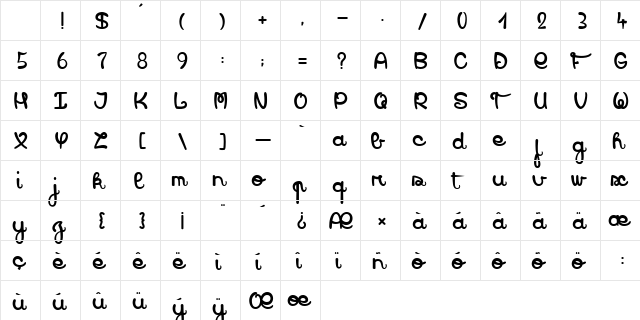
Complete Sweet Dreamz Regular glyph index. Displaying only characters natively supported by Sweet Dreamz Regular font.
Sweet Dreamz is a composed and adaptable typeface that performs quietly and consistently across a wide range of design contexts.